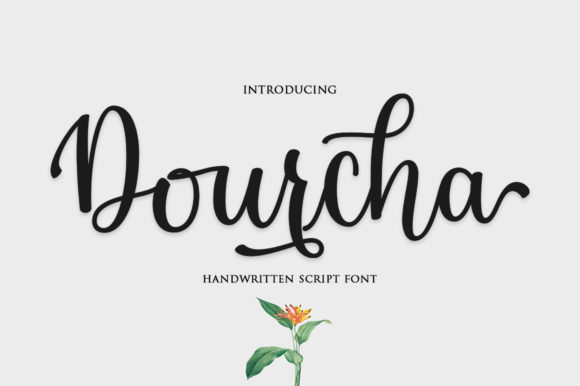
Adorn your designs with the irresistible Dourcha Script Font, an exquisite creation by Attract Studio, where elegance and charm intertwine. Dive into the realm of expressive typography with this modern script font that exudes a trendy and feminine aura.
Unleash your creativity and explore the myriad possibilities that await with Dourcha. Its captivating style, featuring an irregular baseline, adds a touch of dynamic charm to any project. Whether you're composing heartfelt wedding invitations, crafting elegant thank-you cards, or seeking to imbue quotes with a dash of grace, Dourcha stands as your steadfast companion.
Envision your designs blossoming into works of art as you effortlessly craft logos that radiate sophistication and business cards that leave a lasting impression. Let your imagination soar as you create eye-catching greeting cards that convey warmth and heartfelt sentiments. With Dourcha, the boundaries of creativity dissolve, and a world of design possibilities unfolds.
Experience the allure of a font that seamlessly blends tradition and innovation. Dourcha's script style evokes a sense of nostalgia while maintaining a contemporary edge, ensuring your designs remain timeless and relevant. Witness the transformation as ordinary words morph into captivating expressions, each letter a brushstroke of artistry.
With Dourcha, you're not merely downloading a font; you're embracing an experience that elevates your designs to new heights. Its versatility knows no bounds, adapting effortlessly to a symphony of creative endeavors. From social media posts that captivate audiences to marketing campaigns that leave an indelible mark, Dourcha empowers you to communicate with impact and finesse.
Step into the realm of creative freedom, where Dourcha's allure captivates hearts and minds. Let your designs bloom with elegance, and embark on a journey where every word carries the weight of artistry and grace. Embrace the Dourcha Script Font today and unlock a world of design possibilities that will leave you breathless.